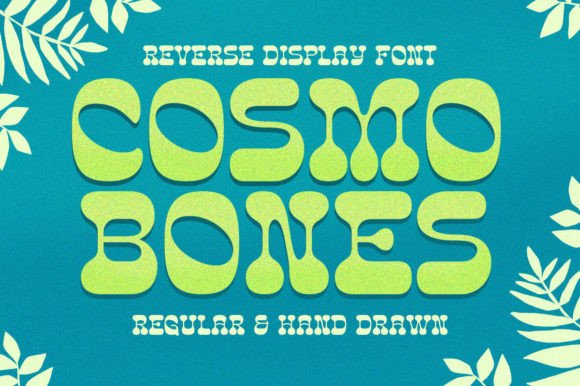
Journey into a world of creativity with Cosmo Bones, the ultimate display font family that captures the essence of playfulness and fun. Designed by the talented letterhend, Cosmo Bones is not just a font; it's an invitation to let your imagination run wild.
With its reverse display style, Cosmo Bones takes on a unique and eye-catching appearance that sets it apart from the ordinary. Each character dances and swirls with a life of its own, creating a visual spectacle that will leave you spellbound. Whether you're designing for a dark game, a whimsical poster, or an enchanting children's book, Cosmo Bones will effortlessly elevate your creations.
Dive into a sea of possibilities with Cosmo Bones. Its versatile nature makes it a perfect fit for a wide range of projects. From branding and logos to social media graphics and website designs, Cosmo Bones has the power to transform your ideas into captivating realities. Its playful charm adds a touch of magic to invitations and greeting cards, while its bold presence commands attention in posters and flyers.
With Cosmo Bones, you'll find endless opportunities to express your creativity. Its carefully crafted characters evoke a sense of nostalgia and wonder, transporting you to a realm where imagination reigns supreme. Whether you're a seasoned designer or just starting your creative journey, Cosmo Bones will be your trusted companion, guiding you towards stunning visual masterpieces.